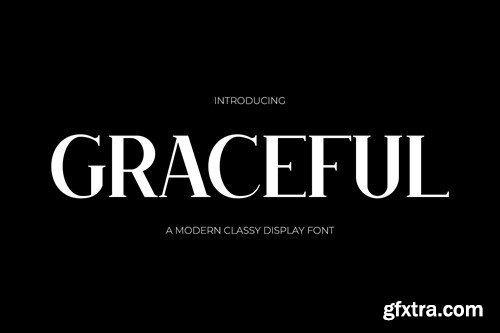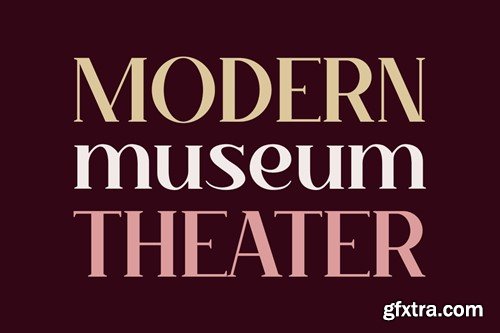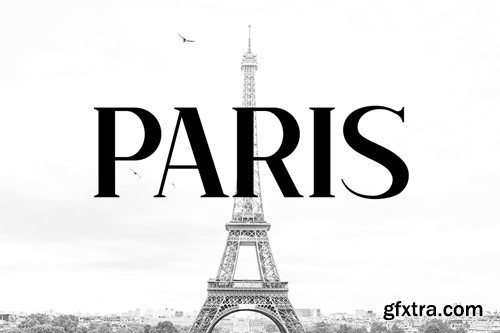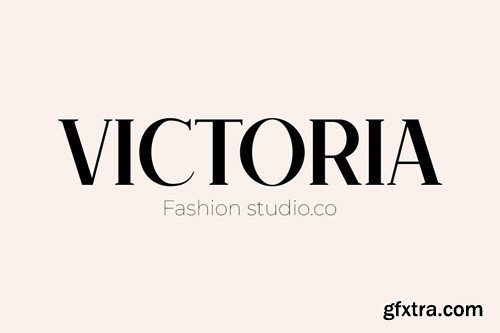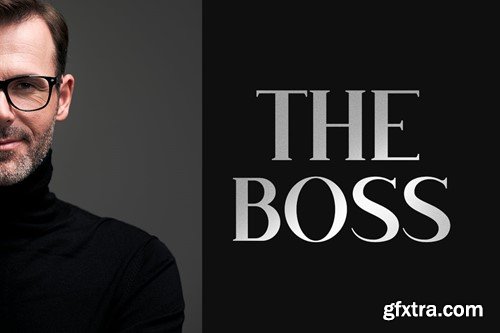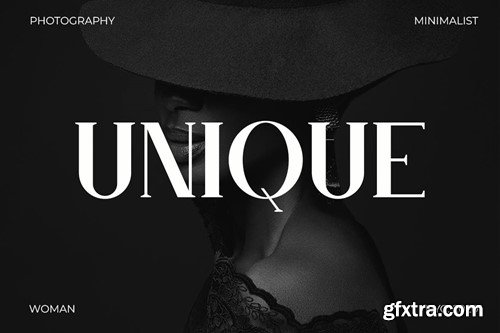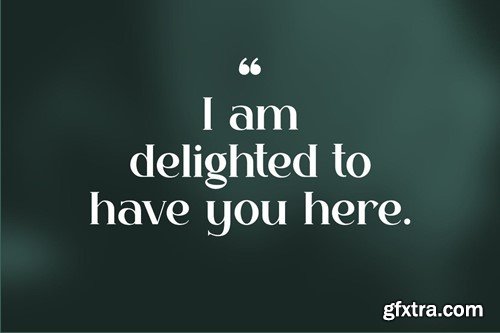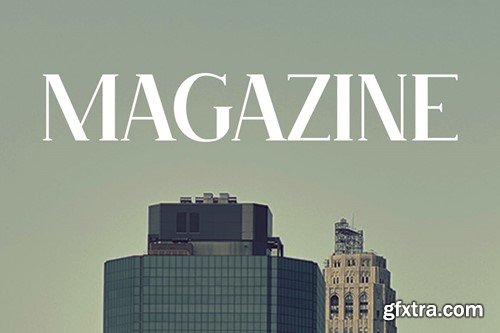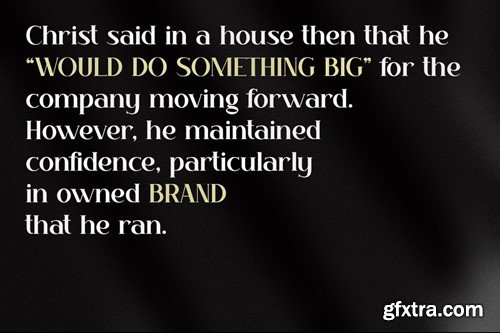
Meet Graceful, a font that effortlessly combines classic charm with timeless elegance. Its sophisticated serif style, reminiscent of Roman typography, makes it the ideal choice for projects that demand a touch of refined beauty. Whether you're crafting editorial content, magazine layouts, logos, advertisements, quotes, invitations, signage, posters, greeting cards, packaging, branding, wedding quotes, or cover albums, Graceful is your trusted companion. The grace and subtlety of this font will add a touch of romance to your designs, turning every project into a work of art. Its editorial quality and elegant curves invite readers to engage with your content, creating an immediate sense of connection. Graceful speaks the language of beauty, making it perfect for advertisements that demand attention, invitations that set the tone for memorable events, or branding that defines a new level of sophistication. With Graceful, you have the power to infuse your designs with a sense of timeless refinement. Add this font to your toolkit and experience the classic charm and elegance it effortlessly brings to every project. Your designs will be graced with the allure of the past and the sophistication of the present.